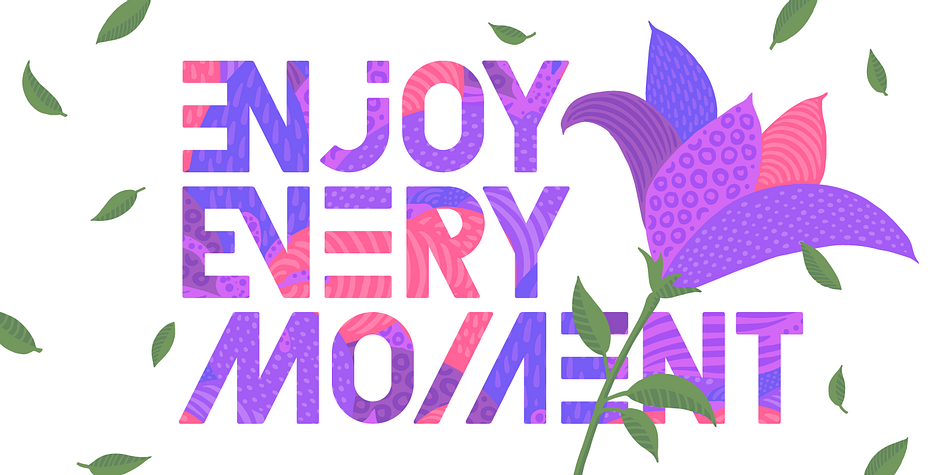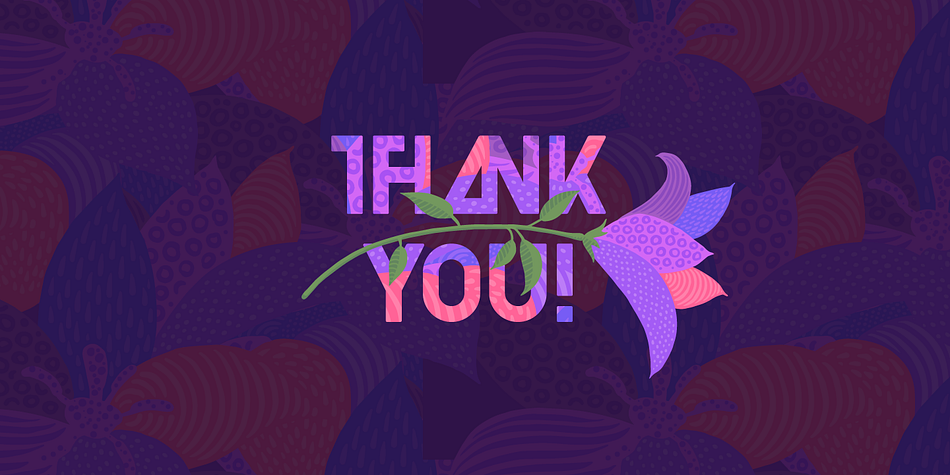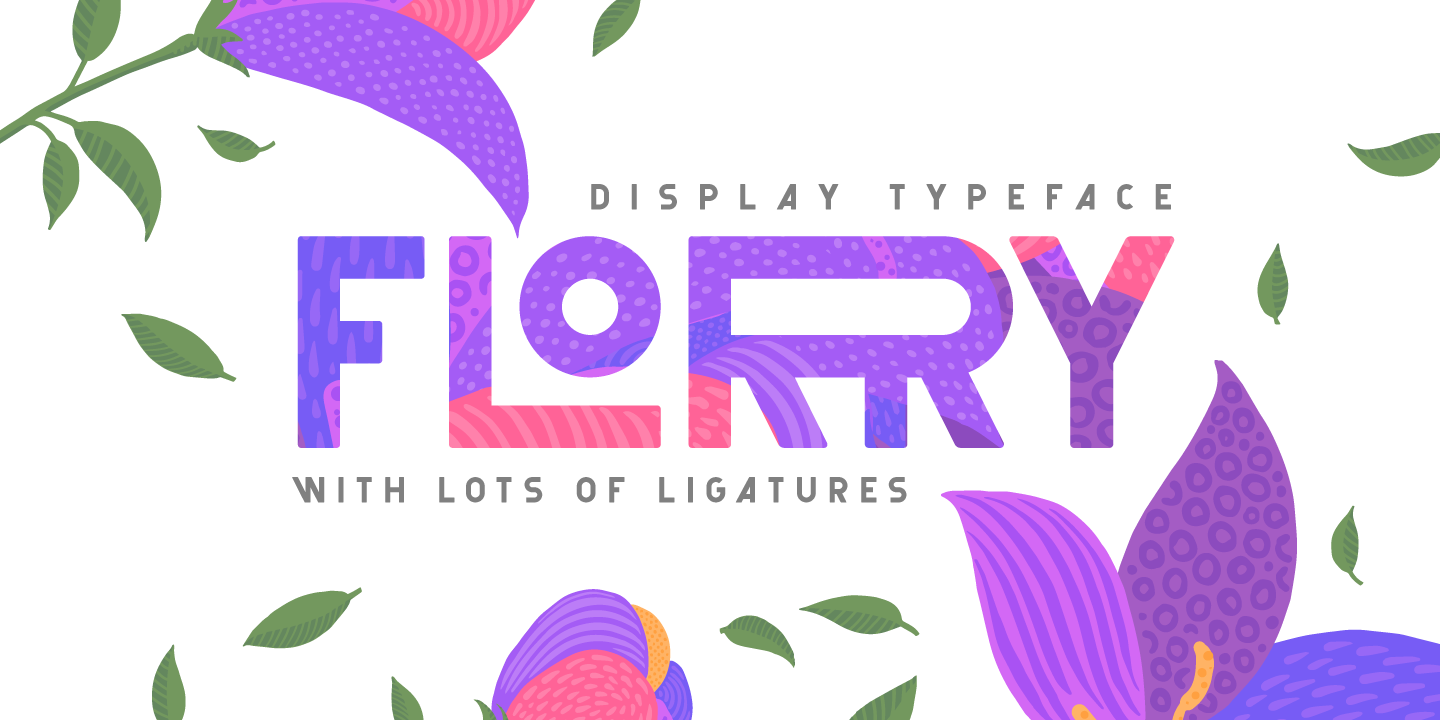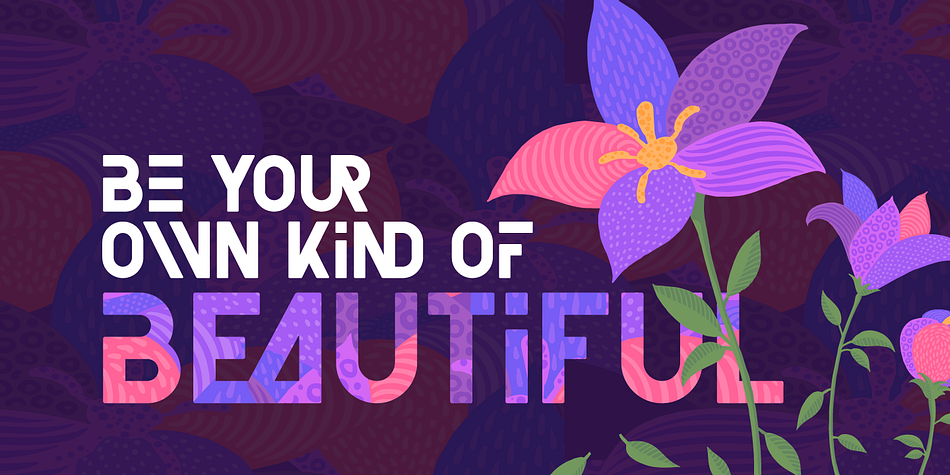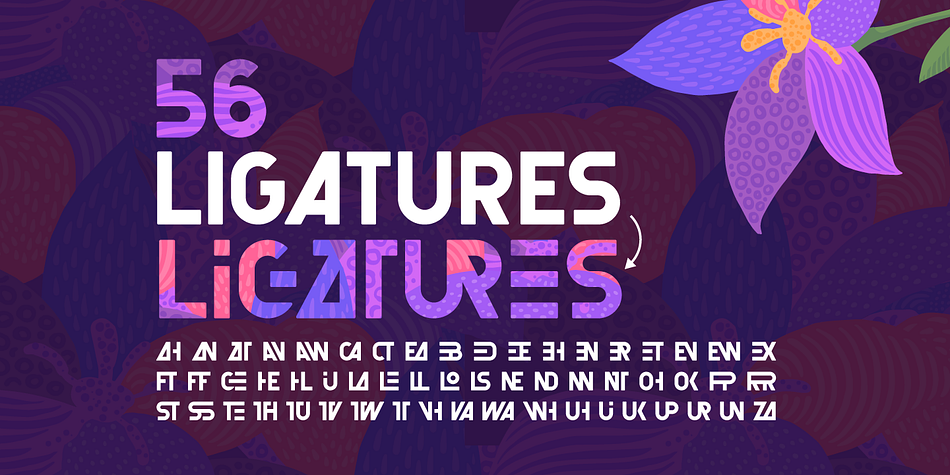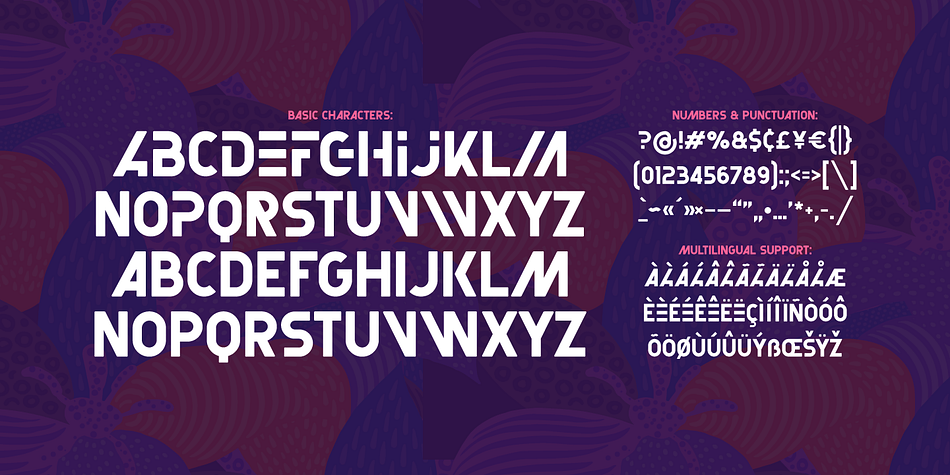
Florry
Designed by Gleb Guralnyk, Florry is a display sans font family published by Gleb Guralnyk.
Hi, introducing a modern display font Florry. It’s a trendy looking typeface with lots of ligatures that helps to make each word unique. It has a multilingual support, all available characters you can see on the 4th screenshot. Also as a bonus you will get a vector flowers illustration and lettering posters (2nd & 3rd screenshots) in editable ai & eps formats.